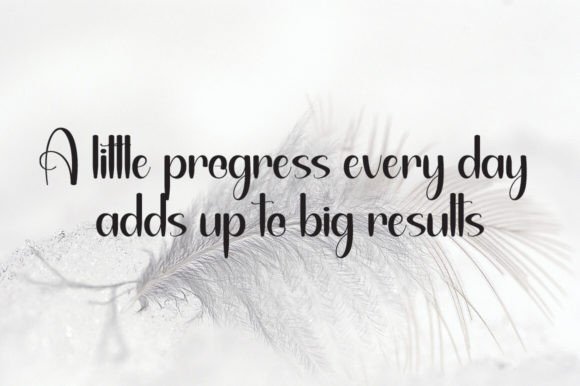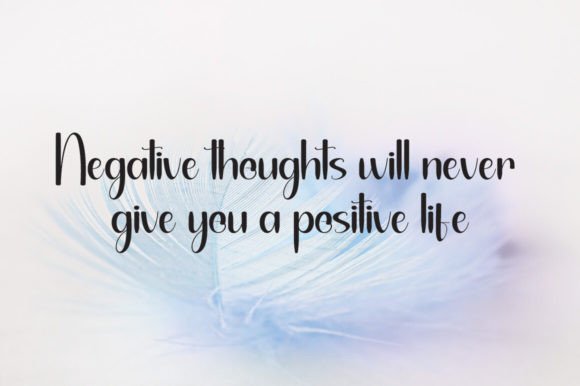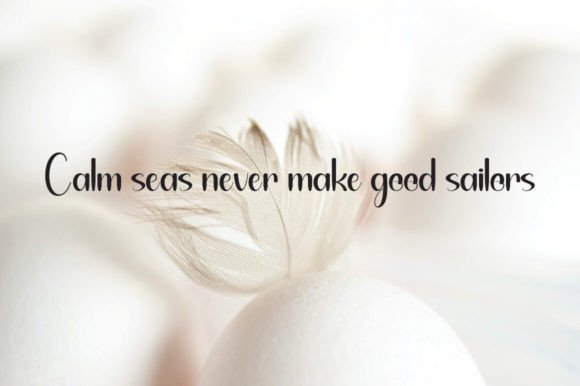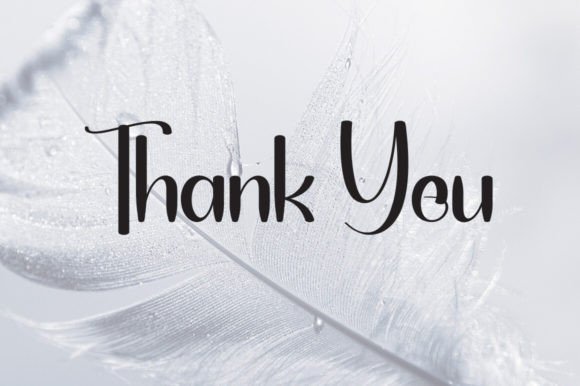
Discover the Delightful Charm of Black Latte Font
Are you a designer or crafter looking for a font that can add a touch of elegance and romance to your projects? Look no further than the ‘Black Latte’ font, an elegantly cursive and sweetly handwritten font that is sure to captivate your audience. In this article, we’ll dive into the world of ‘Black Latte’ and explore its features, uses, and benefits.
The Elegance of Black Latte Font
‘Black Latte’ is a beautifully designed font that exudes a sense of joy and romance. Its gentle design makes it perfect for a wide range of projects, from sophisticated invitations to expressive social media graphics and innovative branding initiatives. The font’s cursive and handwritten style gives it a unique and personal touch, making it stand out from more traditional fonts.
Transform Your Ideas into Standout Designs
With ‘Black Latte’, you can effortlessly transform your ideas into standout designs that are sure to capture attention. The font’s refined aesthetic appeal adds a layer of sophistication to any project, making it perfect for designers and crafters who want to create something truly special. Whether you’re working on a wedding invitation, a social media post, or a branding campaign, ‘Black Latte’ is the perfect choice.
One of the best things about ‘Black Latte’ is its versatility. The font can be used for a wide range of projects, including:
- Sophisticated invitations: Whether it’s a wedding, birthday, or baby shower, ‘Black Latte’ is the perfect font for creating beautiful and elegant invitations.
- Expressive social media graphics: Add a touch of personality to your social media posts with ‘Black Latte’. The font’s cursive and handwritten style makes it perfect for creating eye-catching graphics that stand out from the crowd.
- Innovative branding initiatives: ‘Black Latte’ is also perfect for branding initiatives, such as logos, business cards, and packaging. The font’s unique and personal touch makes it perfect for businesses that want to stand out from the competition.
Why Choose Black Latte Font?
So why choose ‘Black Latte’ font for your next project? Here are just a few reasons:
- Unique and personal touch: ‘Black Latte’ has a unique and personal touch that makes it stand out from more traditional fonts.
- Elegant and refined: The font’s elegant and refined design makes it perfect for sophisticated projects.
- Versatile: ‘Black Latte’ can be used for a wide range of projects, from invitations to branding initiatives.
Add Black Latte to Your Design Toolkit
In conclusion, ‘Black Latte’ font is a beautifully designed font that is sure to captivate your audience. Its elegant and refined design, unique and personal touch, and versatility make it perfect for a wide range of projects. Whether you’re a designer or crafter, ‘Black Latte’ is a must-have font that will help you create standout designs that are sure to capture attention. So add ‘Black Latte’ to your design toolkit today and start creating something truly special.